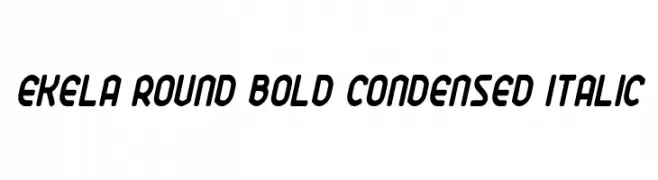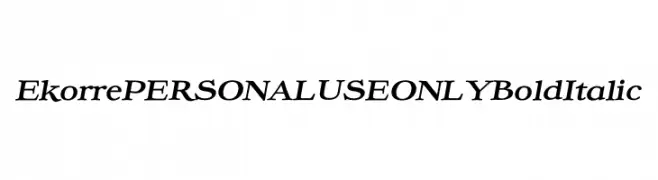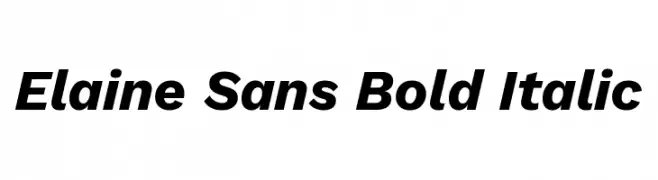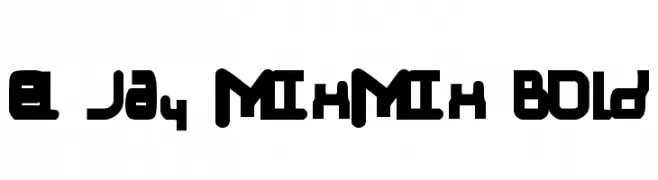
A bold, modern sans-serif font with clean lines and strong readability.
A bold, rounded, and condensed font with a friendly and impactful style.
A bold, condensed, and rounded italic font with a modern flair.
A bold, classic serif font with high contrast and vintage appeal.
A bold, italic serif font with a classic and elegant style.
A bold, modern font with elegant strokes and strong character presence.
A bold, modern font with clean lines and a sophisticated style.
A bold, modern sans-serif font with clean lines and balanced spacing.
A bold, italic sans-serif font with a modern and dynamic style.